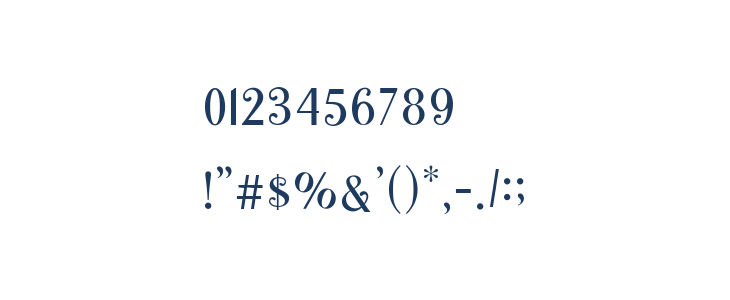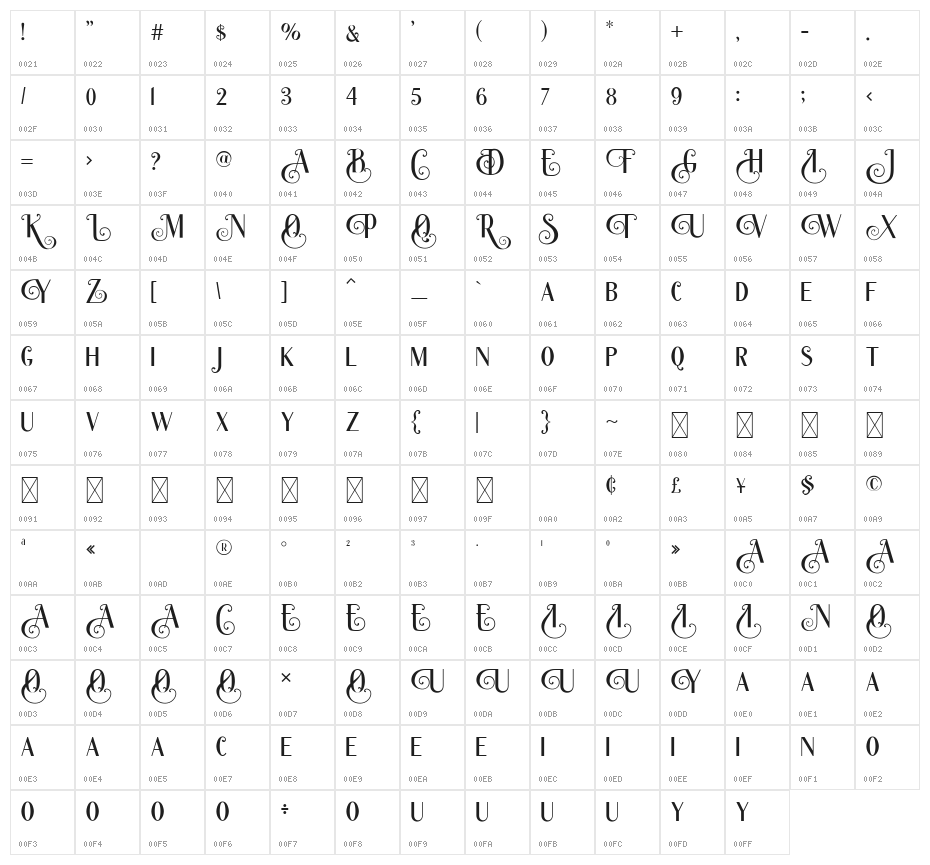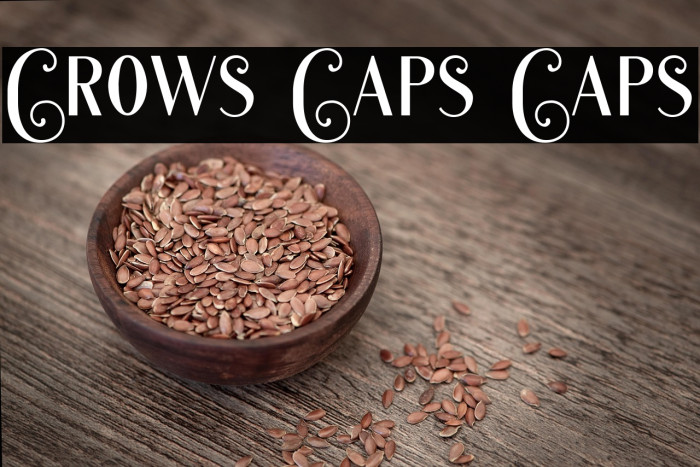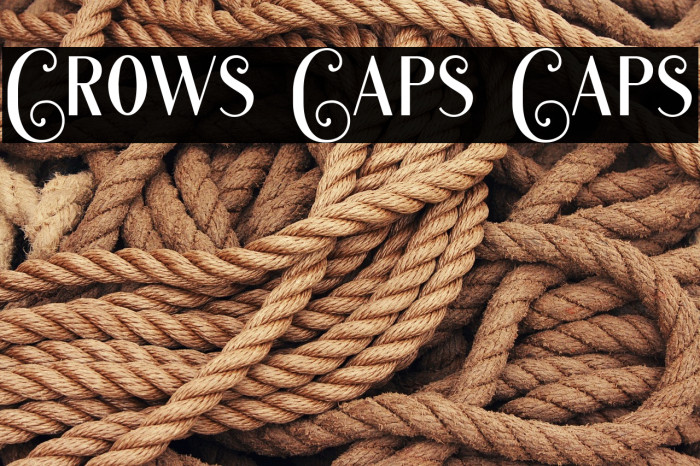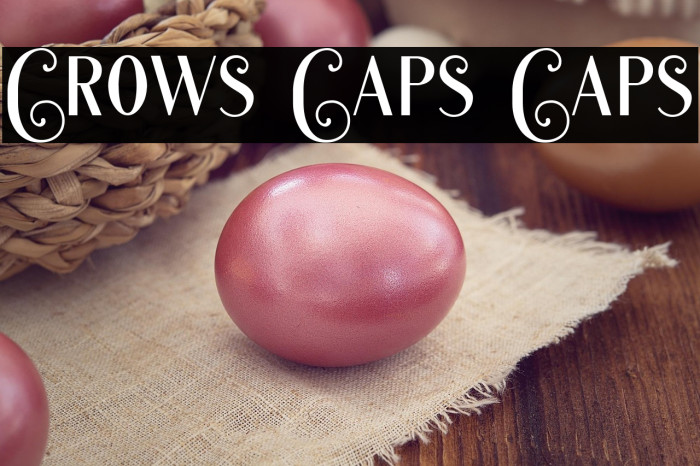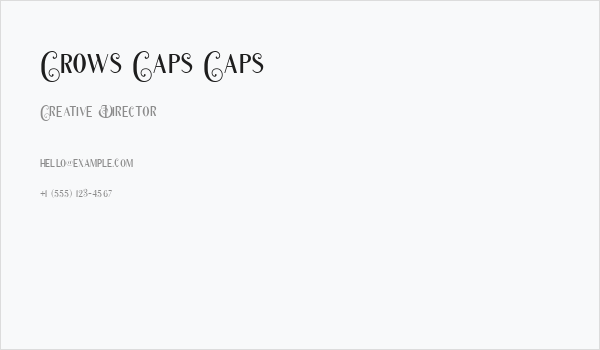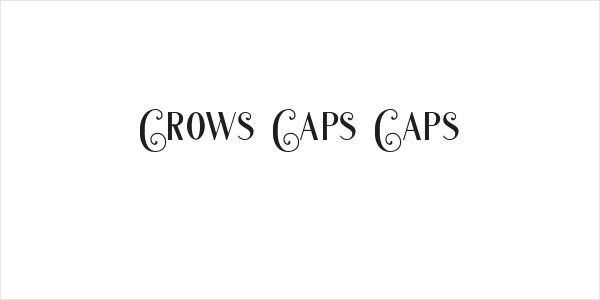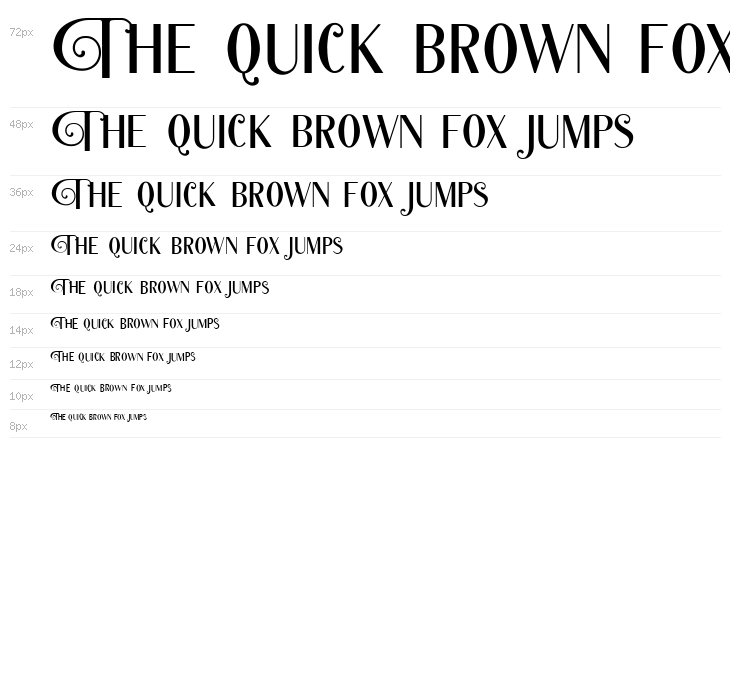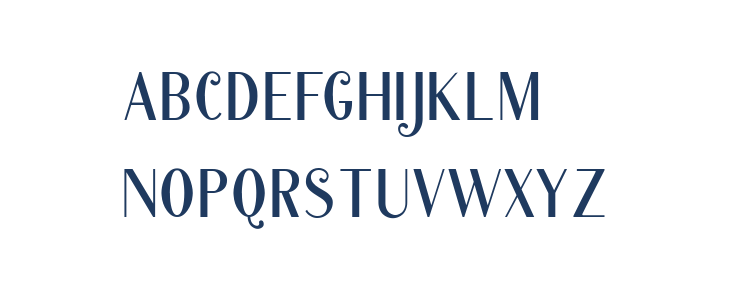
Crows Caps Caps Font
Crows Caps Caps Description
This font presents a unique combination of decorative and modern elements. The uppercase letters feature intricate swirls and curls, adding a touch of elegance and flair. The second set of uppercase letters is bold and clean, offering a stark contrast with its straightforward, sans-serif style. The numerals are consistent with the bold style, ensuring readability and uniformity. Special characters maintain the decorative theme, with some incorporating subtle embellishments. This font is versatile, suitable for both decorative and formal applications, making it ideal for projects that require a blend of sophistication and clarity.
Proposed ProjectsIdeal for wedding invitations, branding, logos, and editorial design.